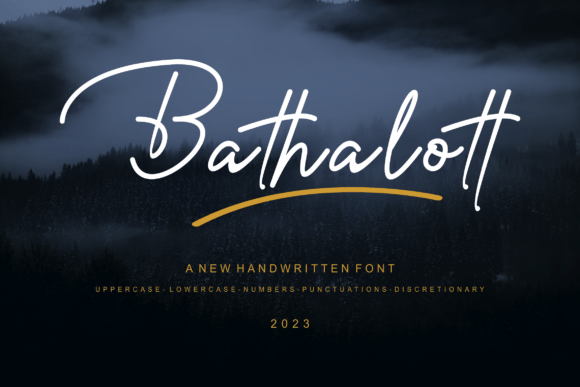
Dive into the world of typography and discover the captivating charm of Bathalott, a script font masterpiece designed to ignite your creativity and elevate your designs to new heights. Immerse yourself in the elegance of Bathalott, a font that dances across the page with its fluid strokes and graceful curves.
With Bathalott, your words will come alive, captivating your audience with a touch of sophistication and flair. Unleash your imagination and watch as Bathalott transforms your designs into visually stunning masterpieces. Whether you're crafting logos, cards, invitations, flyers, or social media content, Bathalott will add a touch of magic to every project.
Step into a realm of endless possibilities with Bathalott, the perfect font for expressing your individuality and making a lasting impression. Let your creativity flow freely as Bathalott's enchanting characters bring life to your designs. Experience the beauty of Bathalott and elevate your typography to new heights.
Indulge in a world of creativity with Bathalott, the font that sets your designs apart. Its modern signature script style adds an irresistible charm to your projects, leaving a lasting impression on your audience. Bathalott is the ultimate choice for those seeking a font that embodies both elegance and versatility.
Embrace the power of Bathalott and unlock a world of design possibilities. Let your imagination soar as Bathalott becomes your creative companion, transforming your ideas into captivating realities. Experience the joy of creating with Bathalott and witness the magic unfold as your designs come to life.